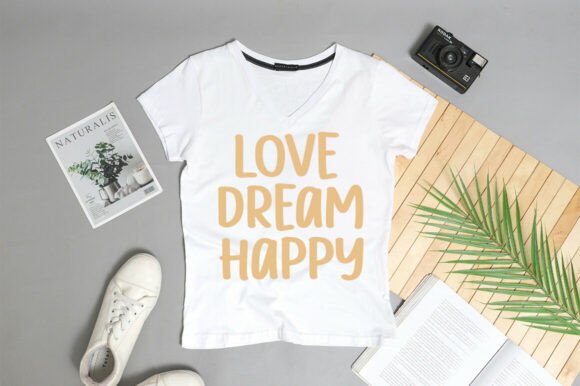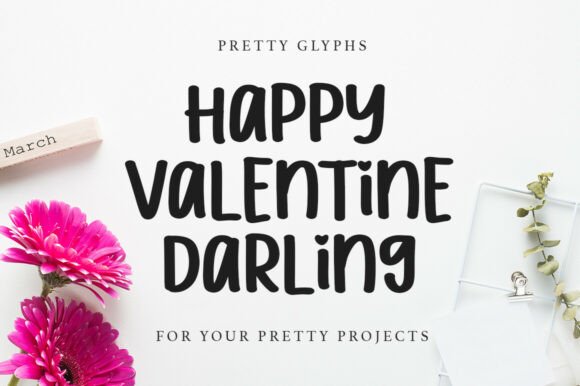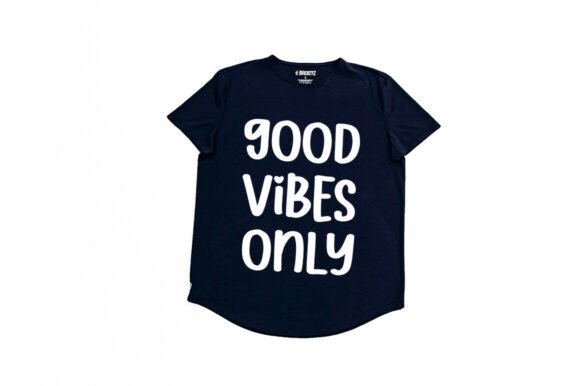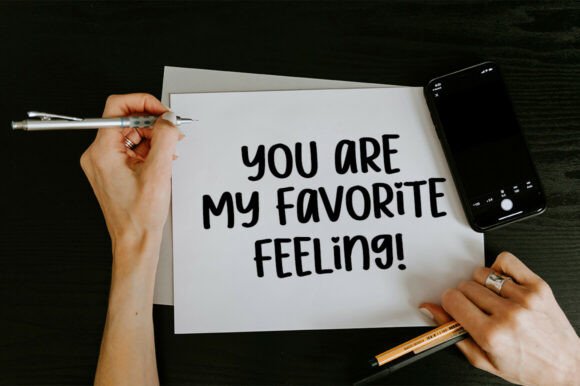
Unleash Your Creativity with Degira Brush Font
Are you tired of using the same old fonts in your designs? Do you want to add a touch of boldness and sophistication to your work? Look no further than the Degira Brush Font, a daring and dynamic handwritten brush font that is sure to take your designs to the next level.
The Birth of a Unique Font
The Degira Brush Font was conceived from real brush lettering, giving it an organic and natural feel that is hard to replicate with digital fonts. Every single character in this font displays the unique strokes and movement of a brush, marrying modern aesthetics with the uninhibited grace of casual scribbling. This handcrafted texture breathes new life into designs, infusing them with an impressive artistic flair that is sure to capture the attention of your audience.
A Perfect Balance of Style and Spontaneity
The Degira Brush Font strikes the perfect balance between free-spirited spontaneity and contemporary chic. It’s robust, arresting, and teeming with imaginative verve, making it the perfect choice for designers and crafters who want to add a strong character to their work. Whether you’re working on a brand representation or social content, this font imprints a confident, artful, and indelible signature that resonates with the beholder.
Key Features of Degira Brush Font
- Handwritten brush font: The Degira Brush Font is a handwritten brush font that is born from real brush lettering, giving it a unique and organic feel.
- Organic strokes and movement: Every single character in this font displays the unique strokes and movement of a brush, adding a touch of spontaneity to your designs.
- Handcrafted texture: The handcrafted texture of this font breathes new life into designs, infusing them with an impressive artistic flair.
- Perfect for creative minds: The Degira Brush Font is perfectly aligned with creative minds yearning for a strong character and authentic vibes.
- Robust and arresting: This font is robust, arresting, and teeming with imaginative verve, making it the perfect choice for designers and crafters who want to add a bold touch to their work.
Use Cases for Degira Brush Font
The Degira Brush Font is versatile and can be used in a variety of design projects, including:
- Brand representation: Use the Degira Brush Font to create a bold and memorable brand identity that resonates with your audience.
- Social content: Add a touch of sophistication and creativity to your social content with this font.
- Advertising: The Degira Brush Font is perfect for advertising projects where you want to grab the attention of your audience.
- Packaging: Use this font to add a personal touch to your packaging designs.
Why Choose Degira Brush Font?
There are many reasons why you should choose the Degira Brush Font for your design projects. Here are a few:
- Unique and creative: The Degira Brush Font is a unique and creative font that will set your designs apart from the rest.
- High-quality: This font is of high-quality and is perfect for professional design projects.
The Degira Brush Font is a daring and dynamic handwritten brush font that is sure to take your designs to the next level. With its unique and organic feel, handcrafted texture, and perfect balance of style and spontaneity, this font is perfect for designers and crafters who want to add a strong character to their work. Whether you’re working on a brand representation or social content, the Degira Brush Font is the perfect choice. So why wait? Download the Degira Brush Font today and unleash your creativity!